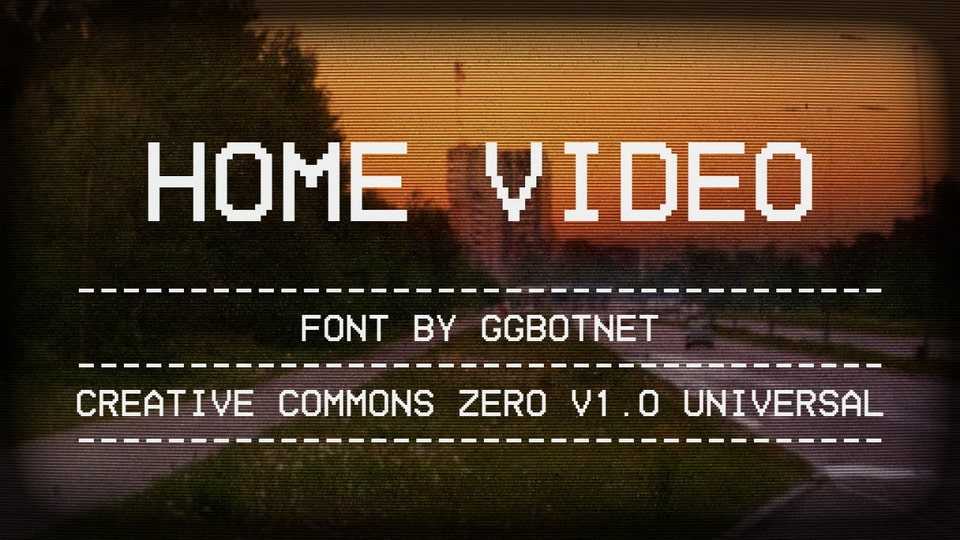
Download Home Video font, a retro pixel typeface inspired by the classic screen fonts of VHS tapes. It captures the nostalgic charm of the 80s and 90s with its blocky, pixelated letterforms and authentic retro aesthetics.